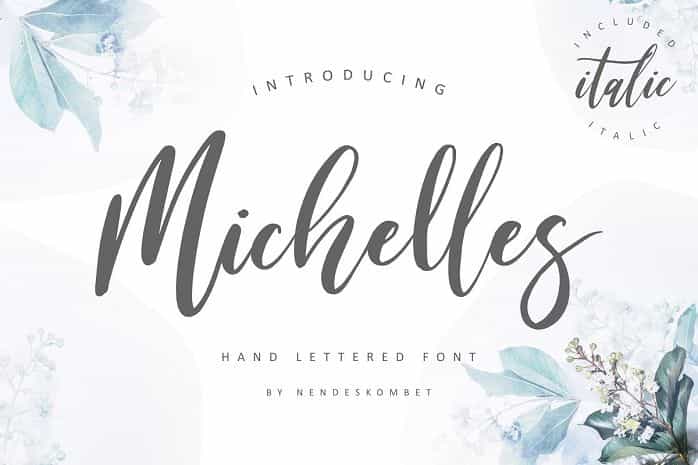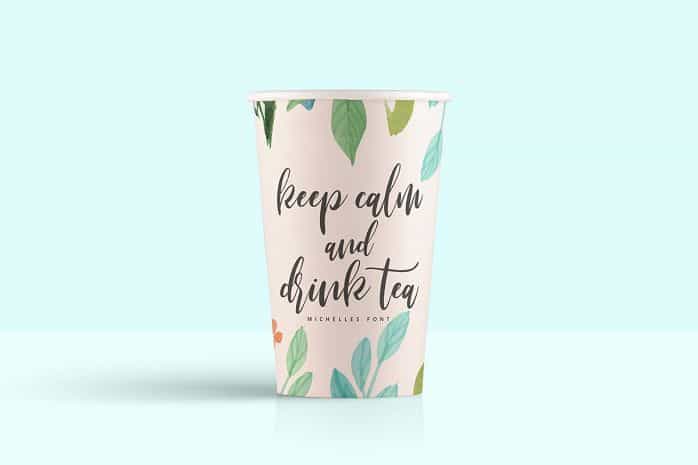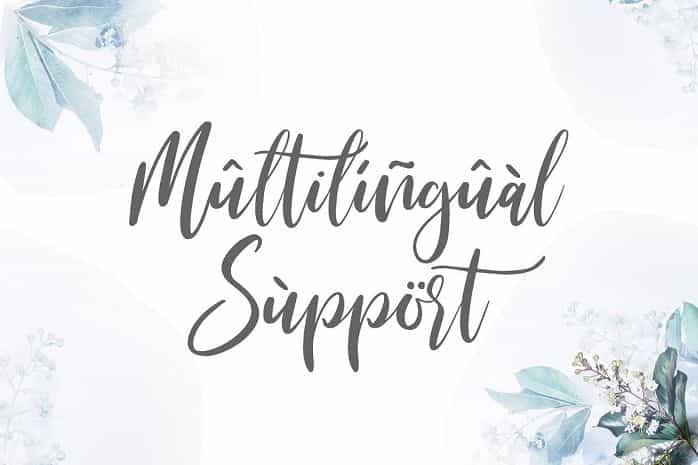
Discover Michelles Script Font, part of the Calligraphy collection—a versatile and unique font perfect for adding a personal touch to your projects. Download it for free and enjoy crafting designs with style, from invitations to social media posts. This font is available exclusively for personal use, giving you the freedom to create without limits. Unlock your creativity with Michelles Script Font today!
Michelle’s Font – a new, fresh, handwritten calligraphy font. A very enjoyable and at the same time elegant script font with a lot of power, which lets you make beautiful hand-made typography in no time. Michelles Script will surely make your text unique – it is just perfect for logos, printed quotes, invitations, cards, product packaging and headers.